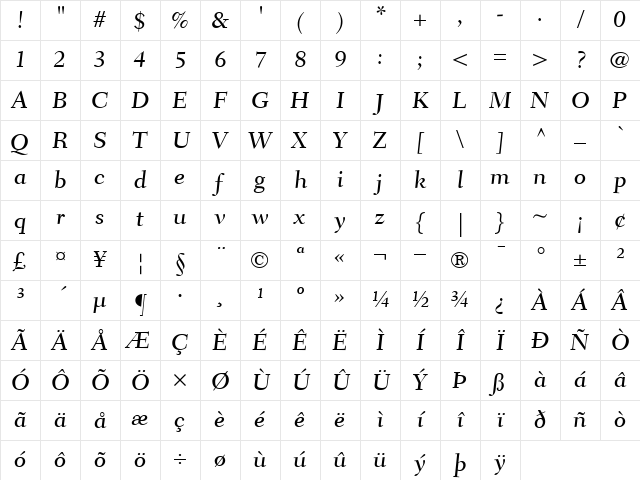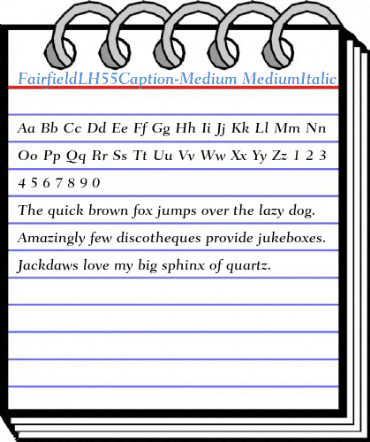
FairfieldLH55Caption-Medium MediumItalic
Style: MediumItalic
Design Context for FairfieldLH55Caption-Medium
FairfieldLH55Caption-Medium is a composed and adaptable typeface that performs quietly and consistently across a wide range of design contexts. The slanted form adds forward momentum and visual energy.
Pro Tip: Use FairfieldLH55Caption-Medium for emphasis, pull quotes, and subheadings where its slanted energy can add rhythm to the layout.